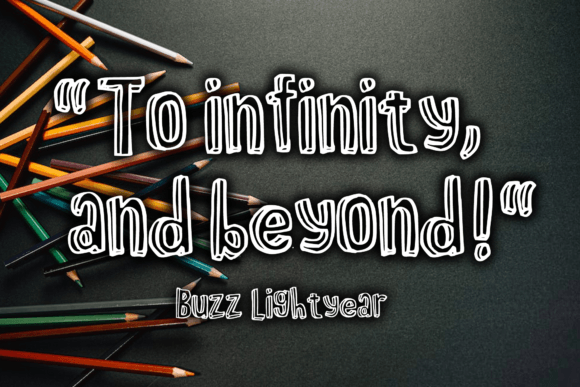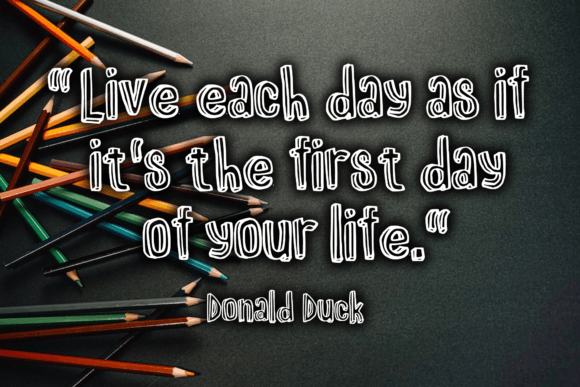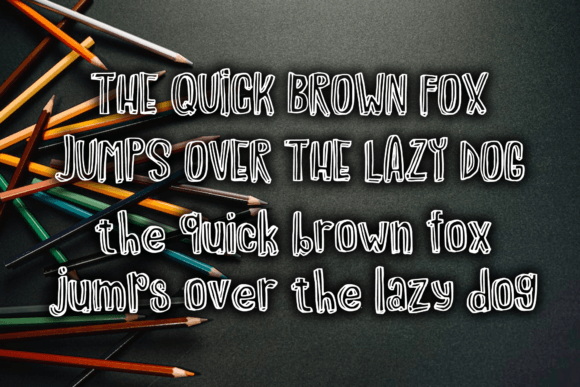
Introduction to Pencil Kid Font
Do you remember the joy of creating something with your own hands as a child? Whether it was drawing, painting, or simply doodling with a pencil, those carefree moments sparked our imagination and creativity. As a designer, you understand the importance of capturing that same essence in your work, making it relatable and engaging for your audience.
One of the most valuable resources for designers looking to infuse their projects with a playful touch is the Pencil Kid Font. This charming handwritten font is perfect for adding a casual, friendly vibe to your designs, from t-shirts and stickers to kids’ book illustrations and greeting cards. With its incredibly versatile style, you can create a wide range of high-quality designs that are sure to delight.
Key Features of Pencil Kid Font
- High-quality, hand-drawn design suitable for creative projects requiring a unique touch.
- Includes a transparent background, allowing for seamless integration into various design applications.
- Features a bold, playful style with a mix of uppercase and lowercase letters, making it perfect for titles and headings.
- Designed to be easily scalable, allowing users to adjust the font size without compromising its legibility or aesthetic appeal.
Honest Review: Pencil Kid Font
As a designer, I’m always on the lookout for high-quality design resources that can elevate my creative projects. Recently, I stumbled upon the Pencil Kid Font, and I’m excited to share my honest review with you.
What works well: ✨ I love the playful, handwritten feel of the Pencil Kid Font. It’s perfect for adding a touch of whimsy to children’s books, posters, or any other project that needs a fun, approachable vibe. The font is also incredibly versatile, with a range of styles and weights to choose from.
- High-quality design: The Pencil Kid Font is well-designed and looks great on both digital and print materials.
- Transparent background: The font comes with a transparent background, making it easy to layer and customize.
Limitations: ⚠️ While the Pencil Kid Font is a great resource, it’s not ideal for formal or professional projects. The handwriting feel can come across as unpolished or informal, so use it sparingly.
Overall impression: I’m a big fan of the Pencil Kid Font. It’s a fantastic addition to any designer’s toolkit, and I’ll definitely be using it for future projects. If you’re looking for a fun, high-quality font for your creative projects, give it a try!
Pencil Kid Font
The Pencil Kid Font is a unique and creative resource for designers and artists. It’s a high-quality font that can be used for a variety of projects, from posters and flyers to logos and branding materials.
Tips for Getting the Most Out of the Pencil Kid Font
To get the most out of the Pencil Kid Font, be sure to:
- Use the font with a transparent background to create a unique and eye-catching design.
- Experiment with different font sizes and styles to add visual interest to your design.
The Pencil Kid Font is perfect for:
- Children’s book illustrations and design
- Education and learning materials
- Playful and creative branding